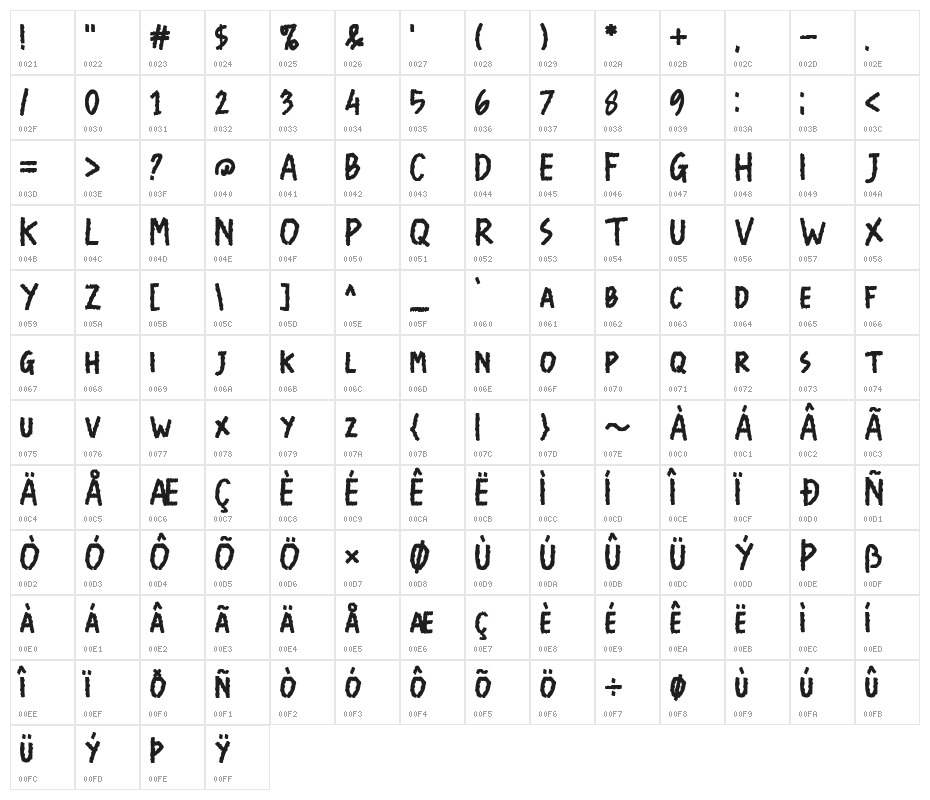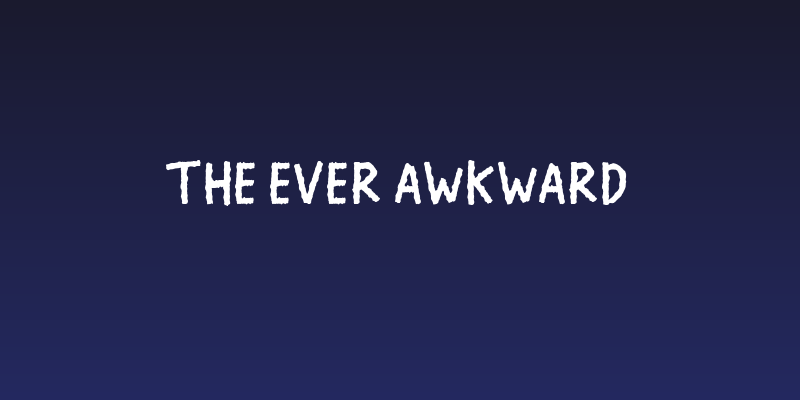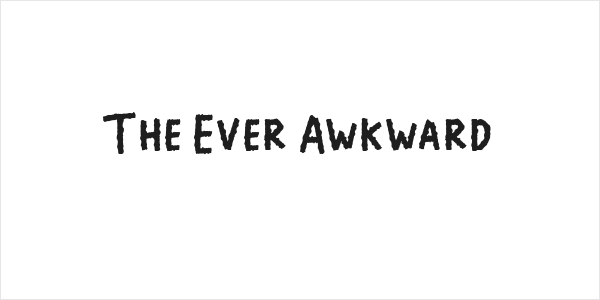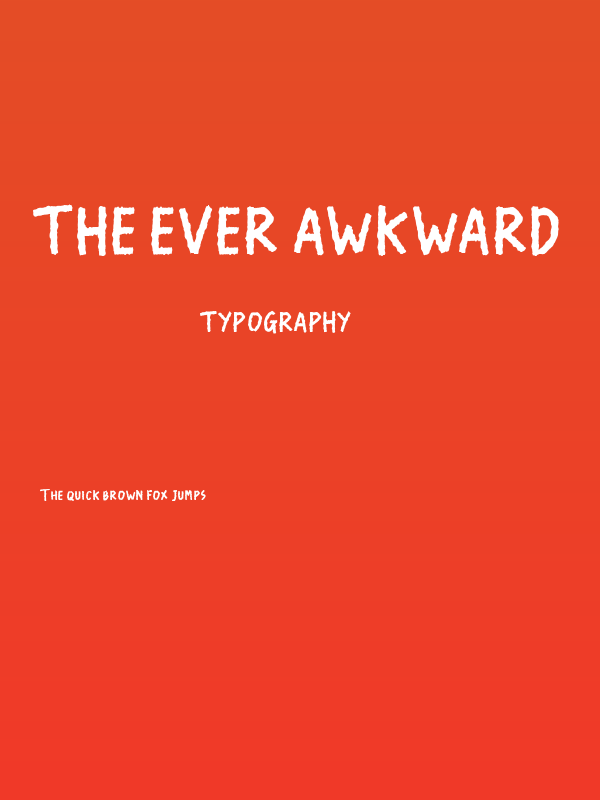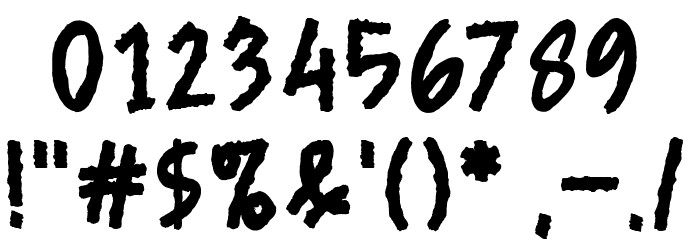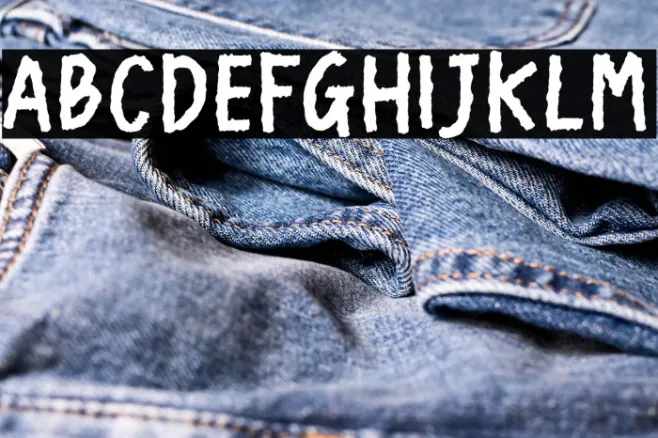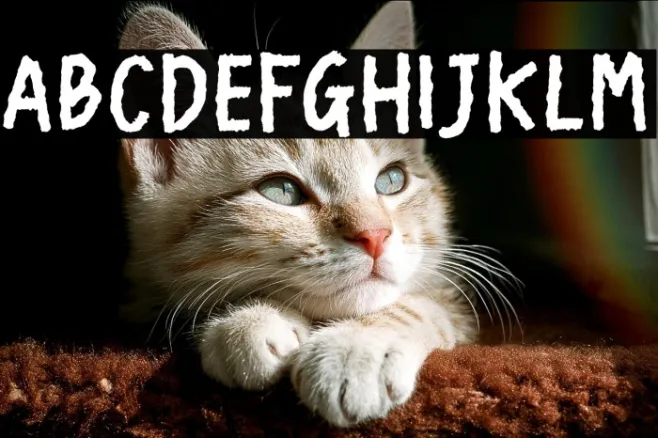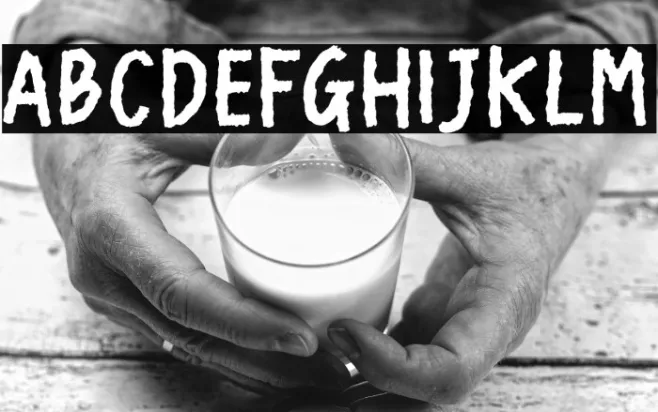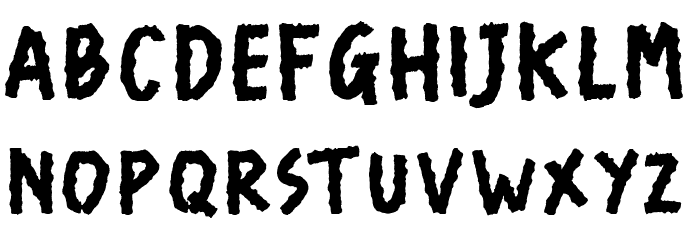
The Ever Awkward Font
The Ever Awkward Description
This font features a bold and rugged handwritten style, characterized by its irregular and jagged edges that give it a raw, organic feel. The letters are slightly uneven, adding to the hand-drawn aesthetic, and the strokes are thick, conveying a sense of strength and boldness. The numbers and special characters maintain this rough texture, ensuring consistency across all glyphs. This font's unique style makes it stand out, offering a distinctive look that is both playful and assertive.
| Use Case | Logos, Posters, Creative projects |
| Proposed Projects | Ideal for projects that require a personal touch, such as greeting cards, posters, or branding materials that aim to convey authenticity and creativity. |